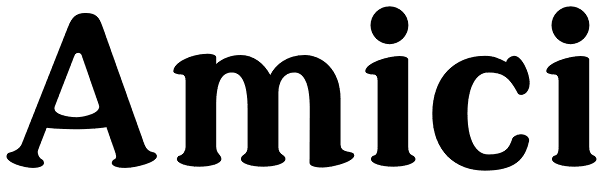
Amici
Amici means 'friends' and the Amici family was conceived as a big friendly Roman typeface for headings, posters, signs and anywhere else that an approachable easy-reading typeface is needed. It's the sort of thing you used to see in Magazine...